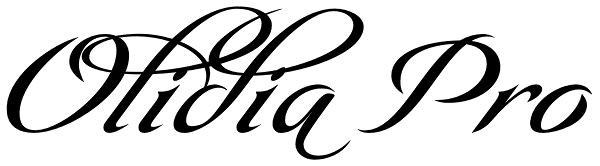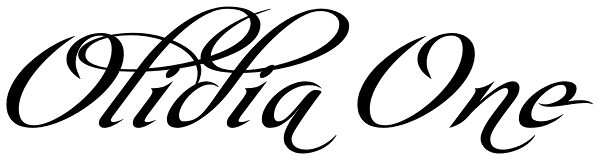
Olidia
Olidia is a script with tall sweeping ascenders packed with alternates and ligatures. Olidia Pro includes over 40 alternate characters and 20 ligatures. This allows designers to mix and match characters to create luxurious and graceful custom...
Olidia Pro
Olidia One
Olidia Two
Olidia Three